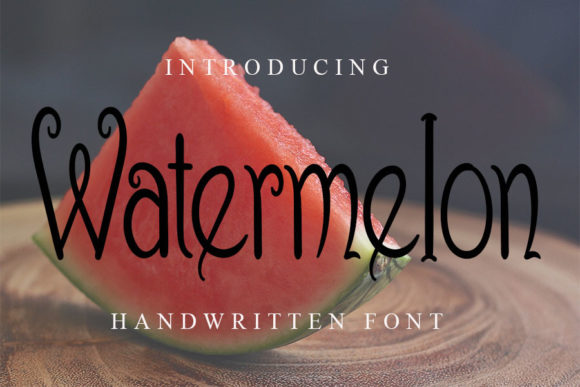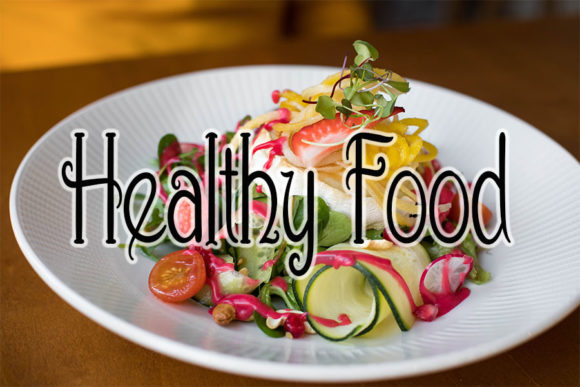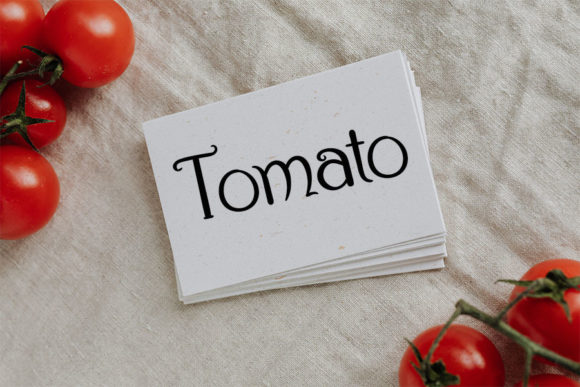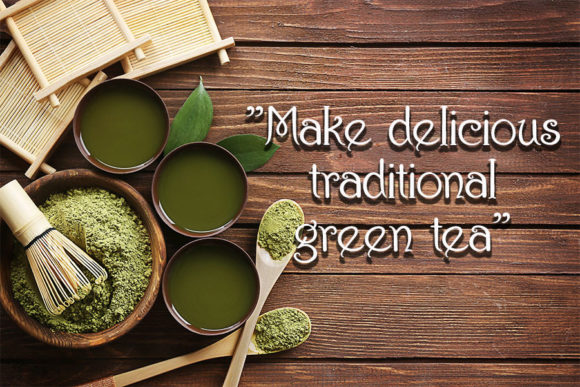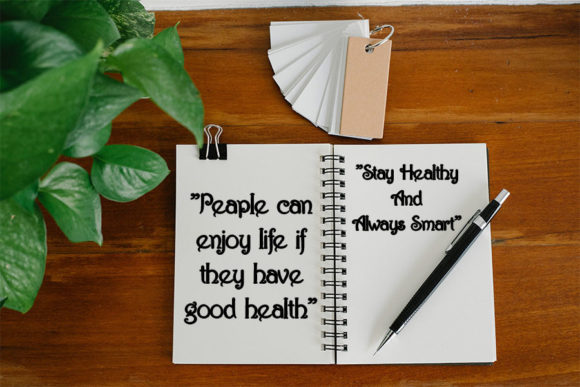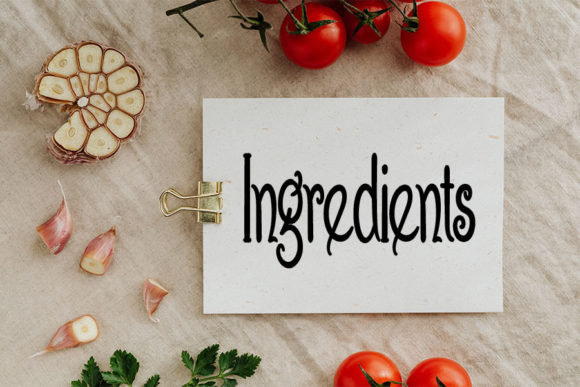
Watermelon Font
About Watermelon Font
“Watermelon” is a slim and delicate handwritten font designed to bring a sense of daintiness and joy to your projects. With its slender design, this font is perfect for writing wedding invitations, cards, or any other design that requires a romantic and personalized touch. The font exudes a charming and intimate aesthetic.
The slim and delicate nature of “Watermelon” imparts a refined quality to the handwritten script, creating an appearance that is both sophisticated and delightful. Each character is carefully crafted, contributing to the font’s overall grace and elegance.
Whether you’re working on wedding invitations, designing heartfelt cards, or engaging in projects that demand a romantic and personal feel, “Watermelon” enhances the emotional tone with its delicate and joyful quality. The font captures the essence of romance, making it a perfect choice for expressing love and warmth.
“Watermelon” adds a unique and intimate touch to your designs, creating a sense of connection with the audience. Its versatility allows it to adapt seamlessly to various applications, ensuring a harmonious and personalized aesthetic in every context.
Choose “Watermelon” to infuse your projects with the sweetness and delicacy of a slim and delicate handwritten script. Let this font be the perfect companion for expressing romance and joy, turning your designs into heartfelt and memorable creations.